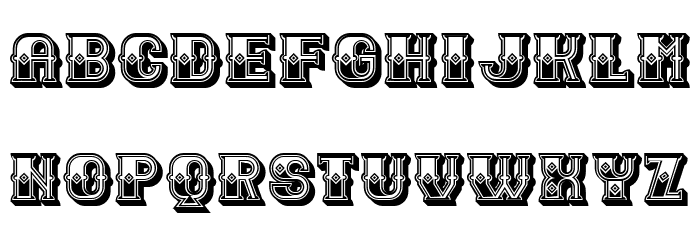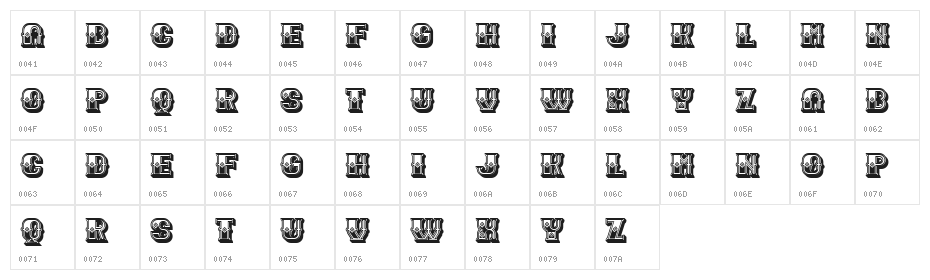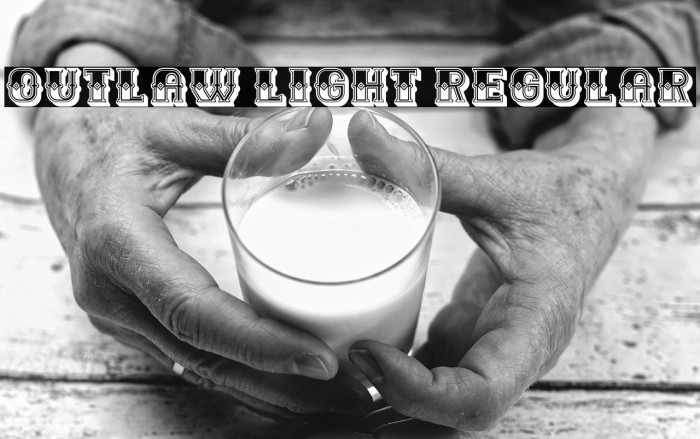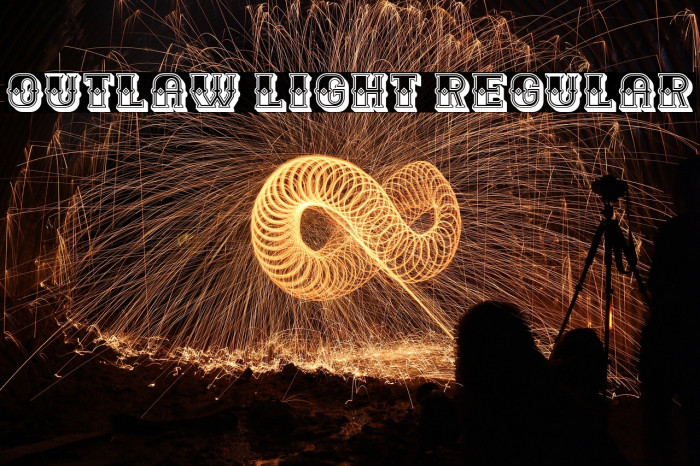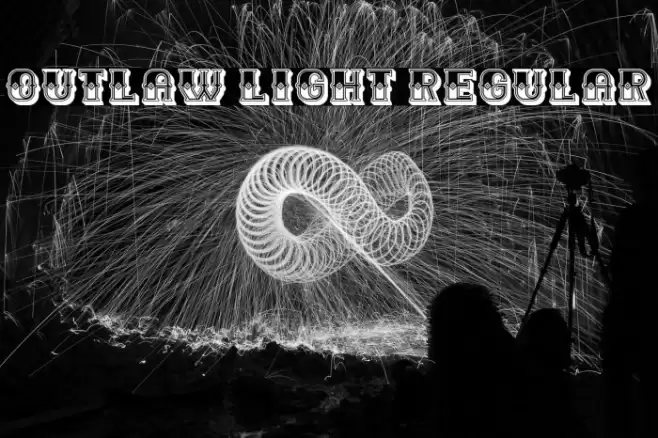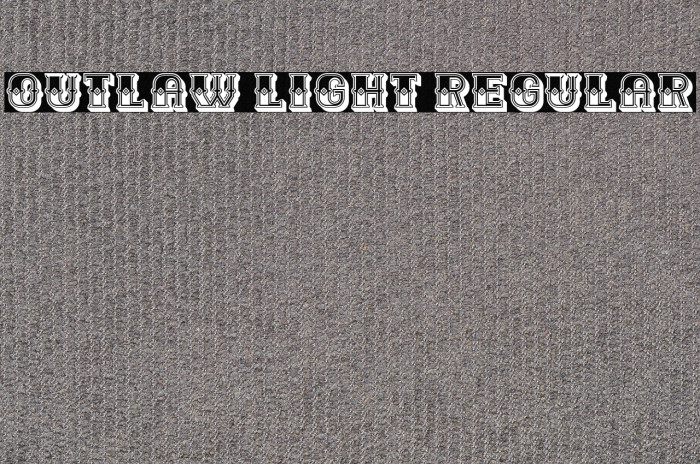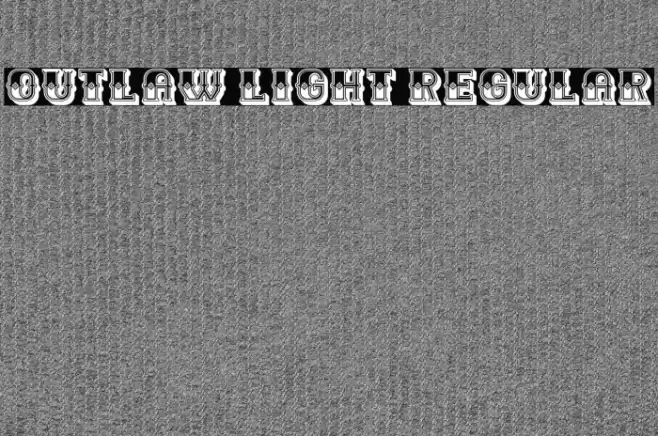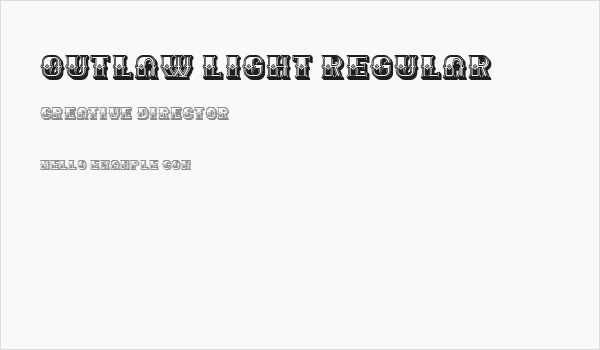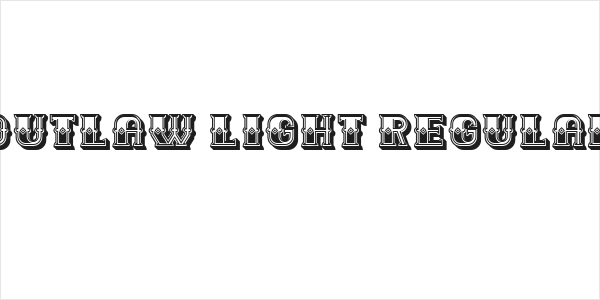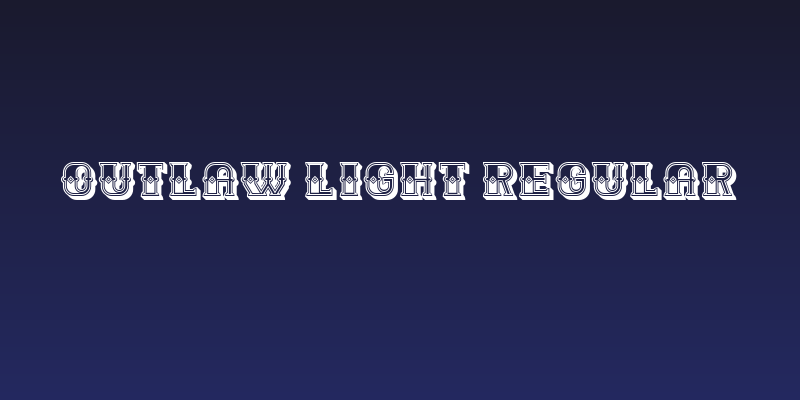
Outlaw Light Regular Font
Outlaw Light Regular Description
This font features a bold, decorative style with intricate detailing that gives it a vintage, western feel. The characters are outlined with a thick border, creating a strong visual impact. Each letter is adorned with ornamental elements, adding to its unique and eye-catching appearance. The font is designed to stand out, making it ideal for projects that require a distinctive and memorable typeface. Its boldness and decorative nature make it suitable for headlines, posters, and branding that aim to convey a sense of nostalgia or ruggedness.
| Proposed Projects | Ideal for posters, branding, and headlines that require a vintage or western theme. |